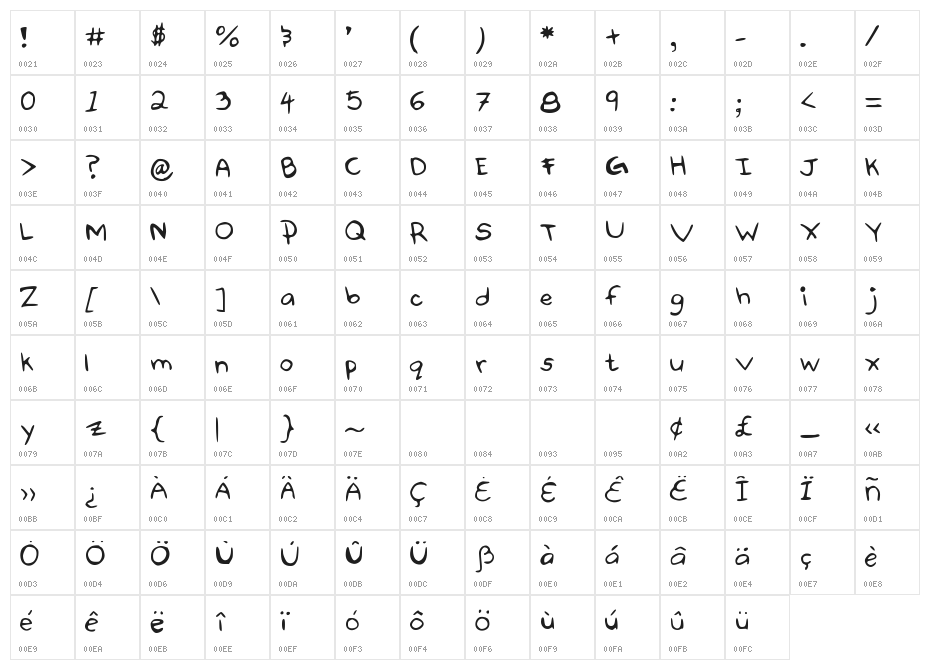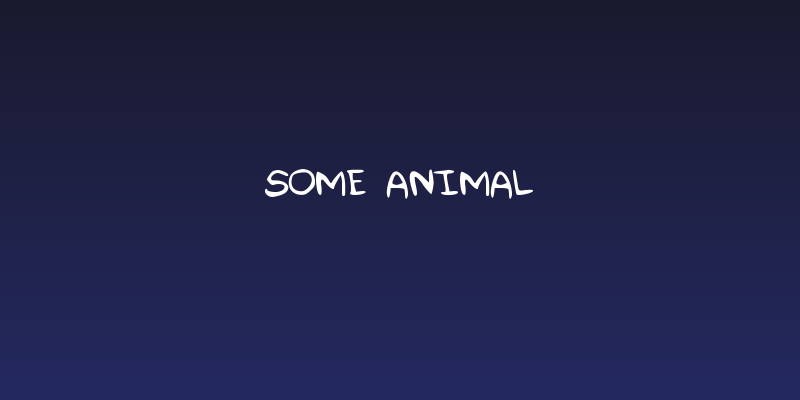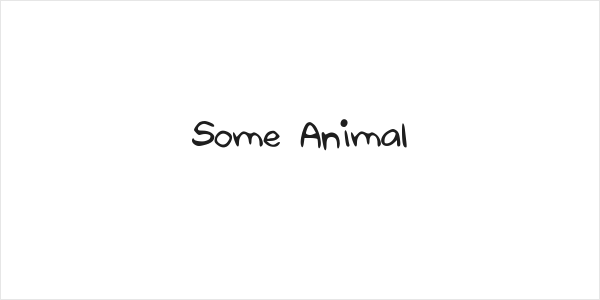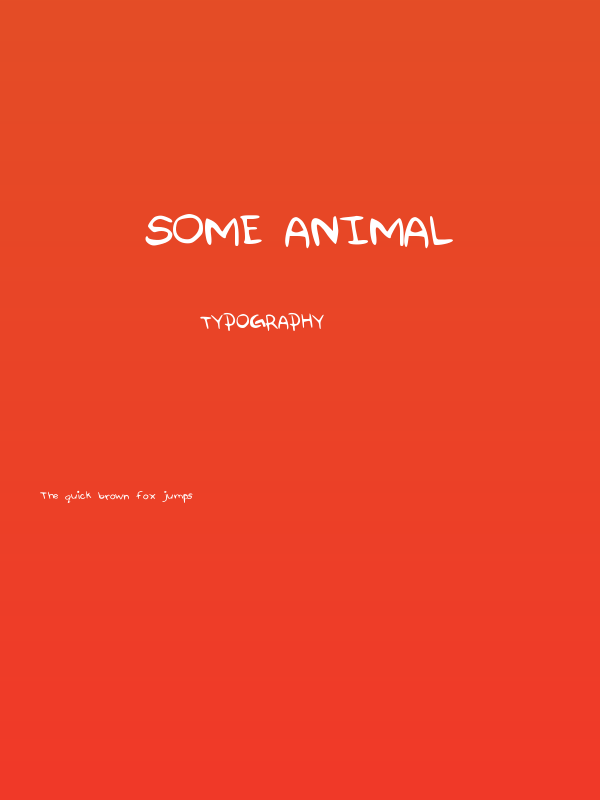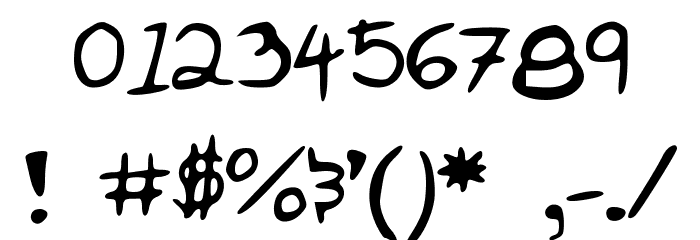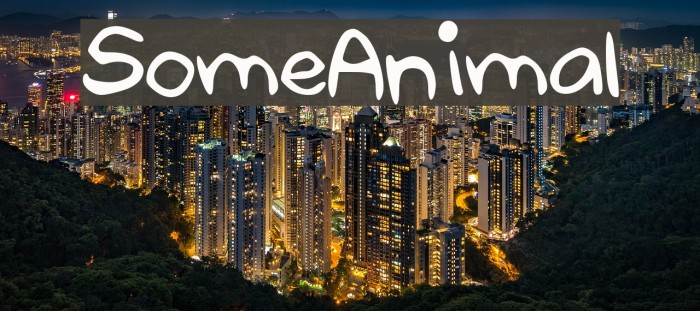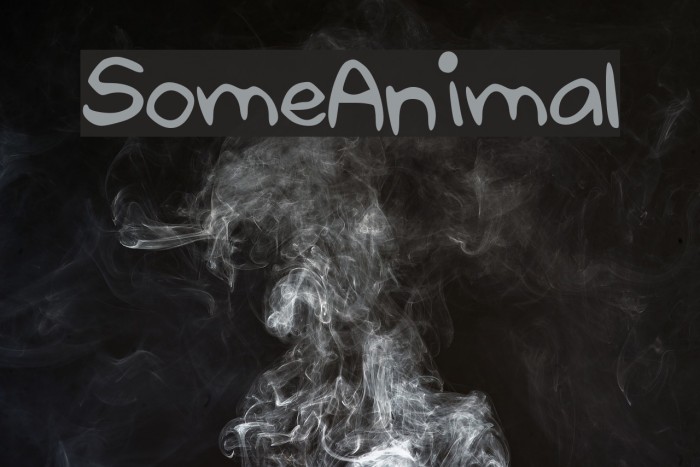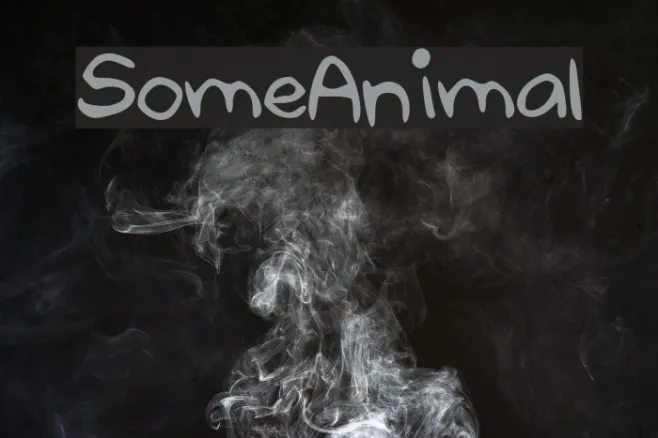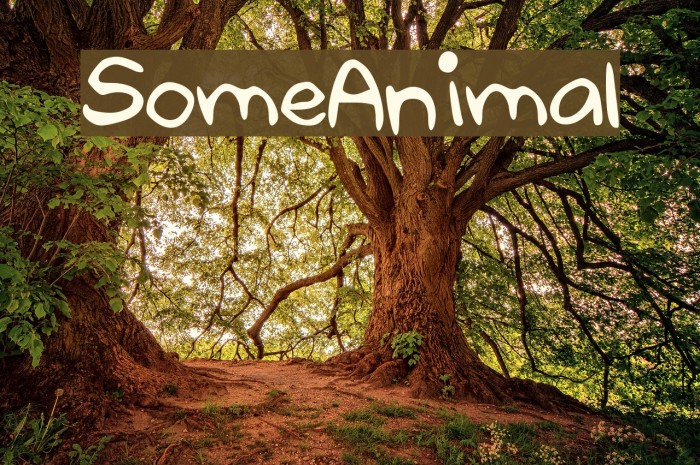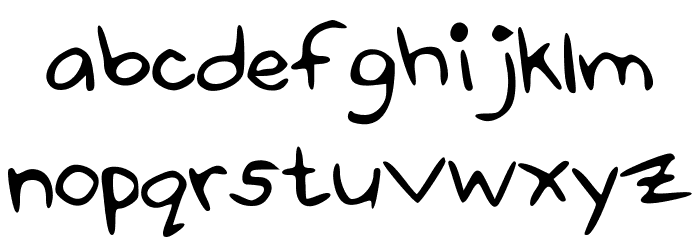
Some_Animal Font
Some_Animal Description
This playful and whimsical font features a handwritten style with a casual and informal appearance. The characters are slightly irregular, adding a sense of spontaneity and creativity. The uppercase and lowercase letters are distinct, with some characters having unique flourishes and curves that enhance the font's playful nature. The numbers and special characters maintain the same lively style, making the font versatile for various creative projects. The overall look is friendly and approachable, perfect for designs that aim to convey a sense of fun and informality.
| Proposed Projects | Ideal for children's books, greeting cards, playful branding, and casual invitations. |